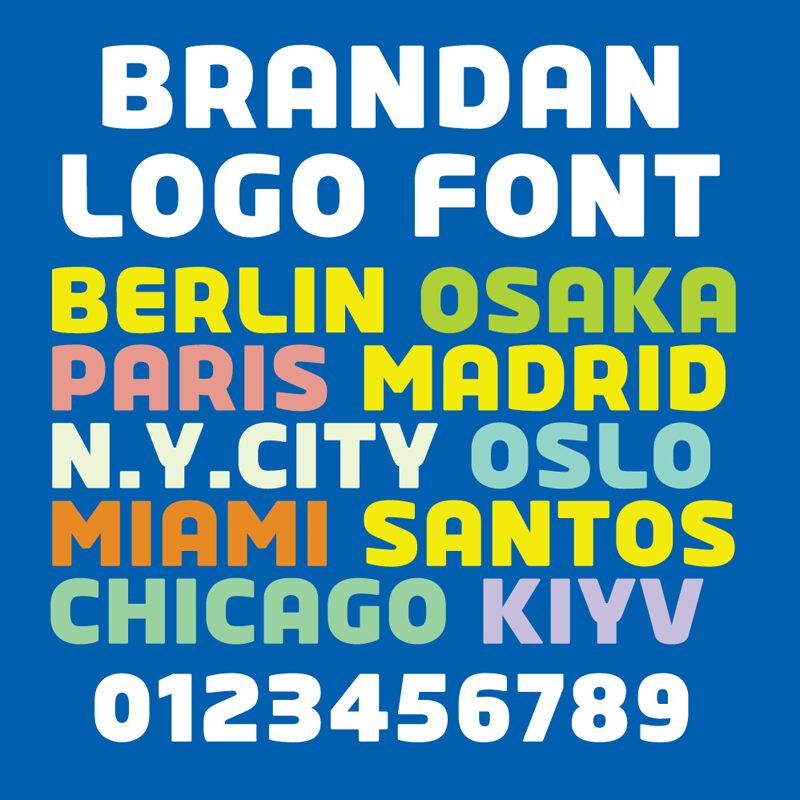
Introducing Brandan, a bold and wide sans serif font created by Andrii Shevchyk. Perfect for diverse projects such as posters, logos, titles, and headlines - Brandan stands out with its unique and modern look.